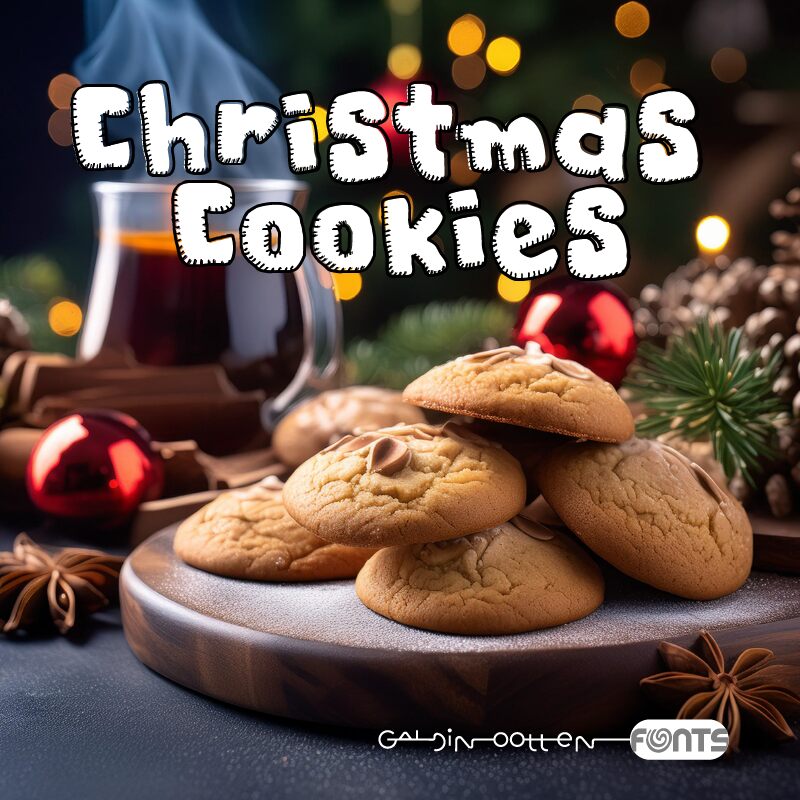
Christmas Cookies
Capture the festive spirit with "Christmas Cookies," a bold and whimsical display font crafted by Galdino Otten Fonts. This playful typeface exudes a charming, hand-drawn aesthetic, with organic curves and a touch of playfulness that evokes the joy of the holiday season. The thick, brush-like strokes and unique character shapes create a delightfully stylized effect, making this font an eye-catching choice for a variety of creative applications.
Christmas Cookies' versatility shines through, lending itself beautifully to holiday-themed designs, festive branding, greeting cards, and even children's illustrations. Its bold, attention-grabbing presence makes it an ideal selection for headlines, posters, and other display-focused projects, while its inherent festive character ensures a seamless integration with the spirit of the season.